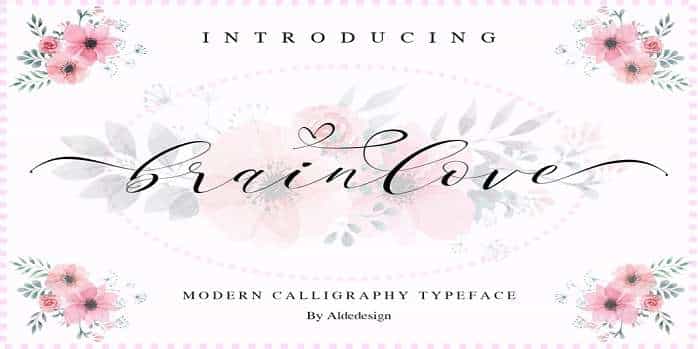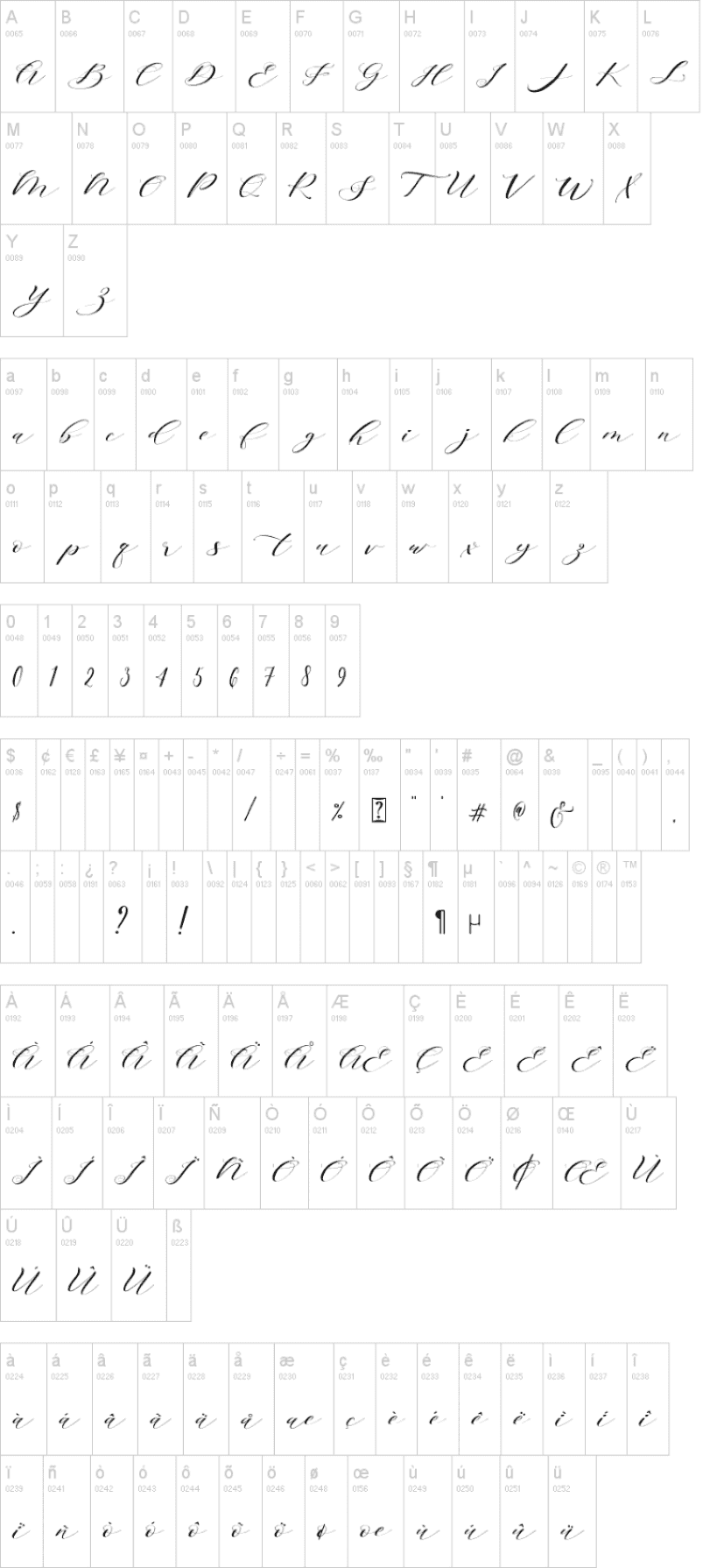
Discover Brainlove Font, part of the Calligraphy collection—a versatile and unique font perfect for adding a personal touch to your projects. Download it for free and enjoy crafting designs with style, from invitations to social media posts. This font is available exclusively for personal use, giving you the freedom to create without limits. Unlock your creativity with Brainlove Font today!
Brainlove by aldedesign is a supreme Calligraphy type which is offered for free download and personal use. The freedom version lets you use all uppercase and lowercase letters and a few special characters as well.